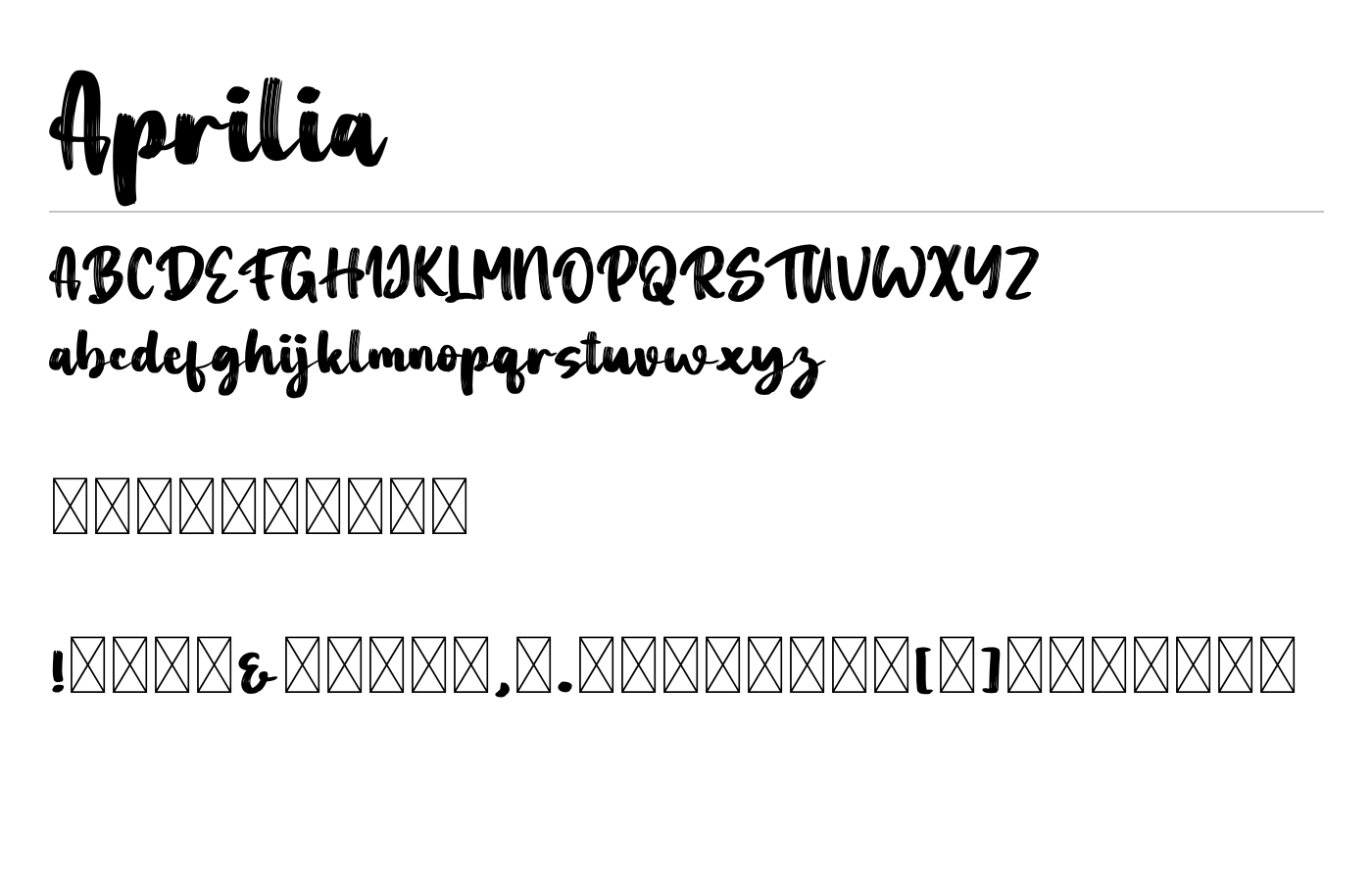
Aprilia is a lively and casual script font that combines bold, brush-like strokes with smooth, rounded edges, giving it a friendly and approachable feel. Its flowing letterforms with a hand-painted look make it ideal for creative projects, branding, and invitations that want to convey warmth and personality. This font works especially well in headlines and logos where a playful yet stylish impression is desired.
Aprilia Font
About Aprilia Font
| Font family | Aprilia Font |
| Designer | Ana Natalia |